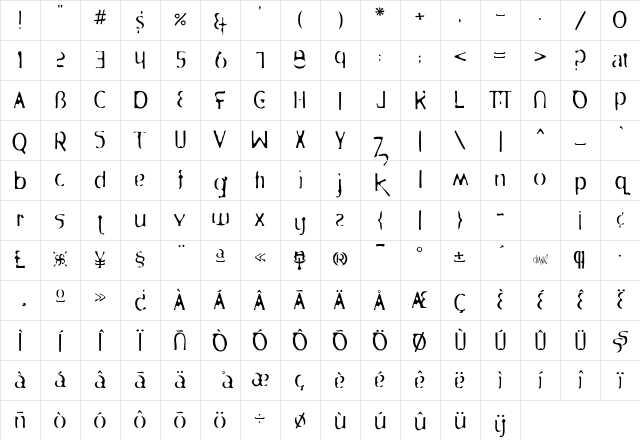
Dutch Oven Free Font
Dutch Oven
Style: Oven
Design Context for Dutch
Dutch is a composed and adaptable typeface that performs quietly and consistently across a wide range of design contexts.